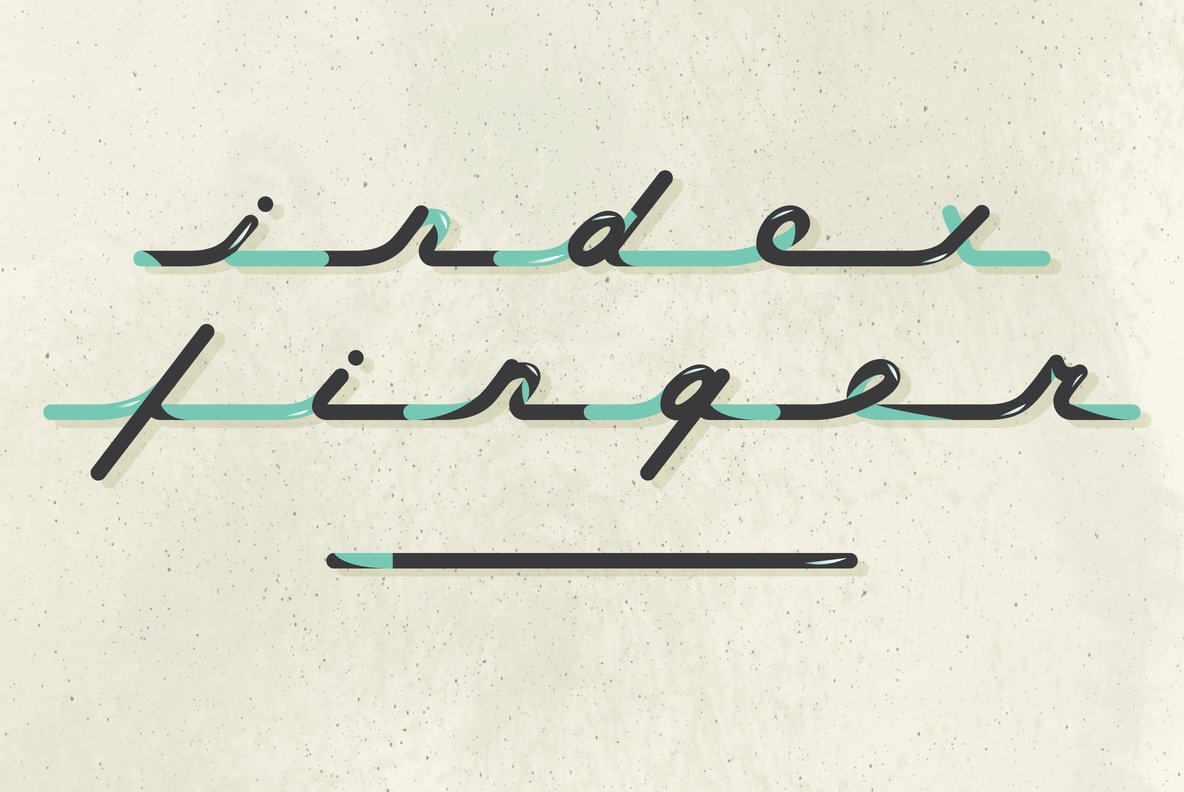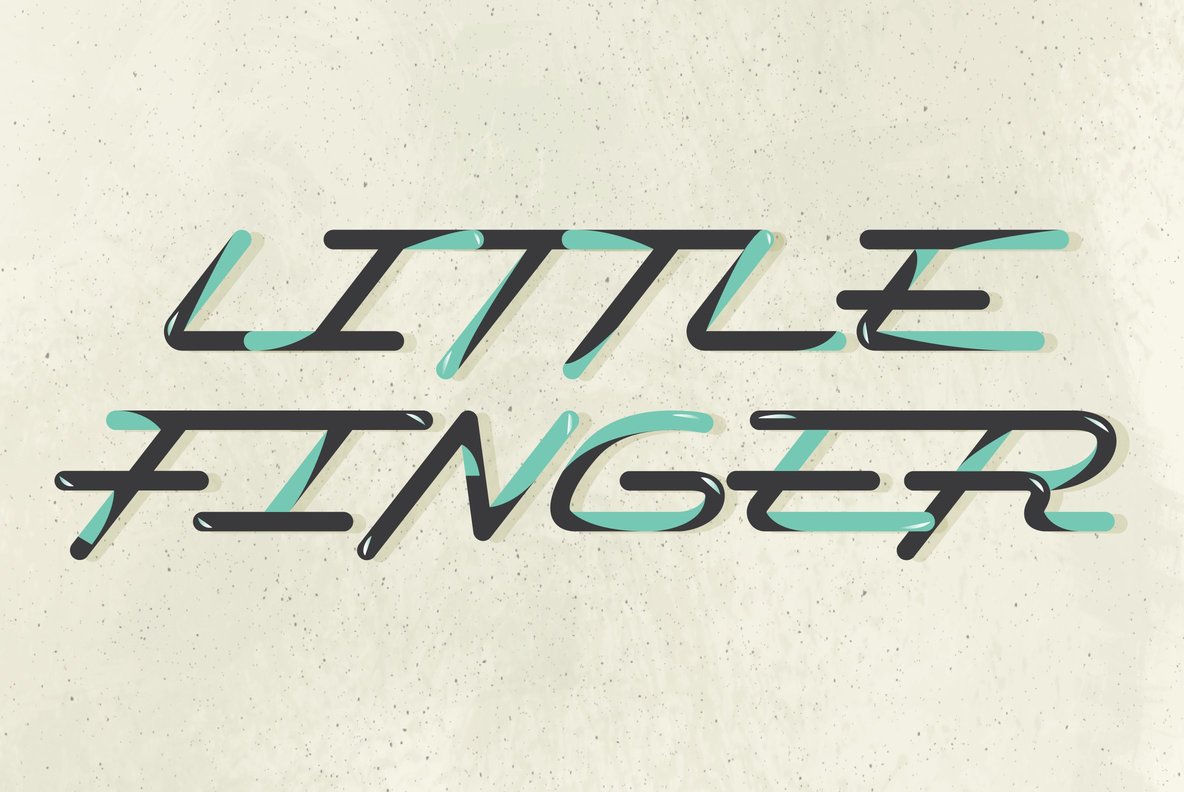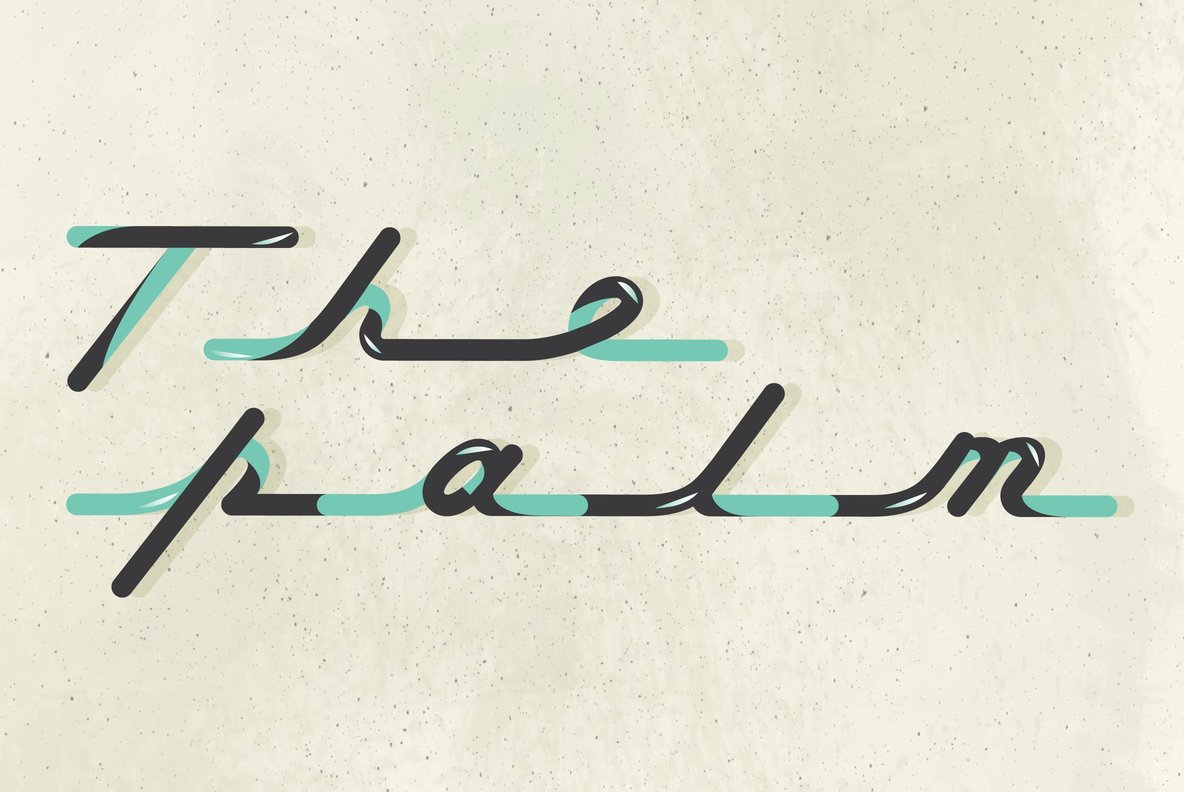
Permanent Waves Expanded
Want to ride a little longer? Get Permanent Waves Expanded for long drives and easy miles featuring a wider sleeker compliment to the original!